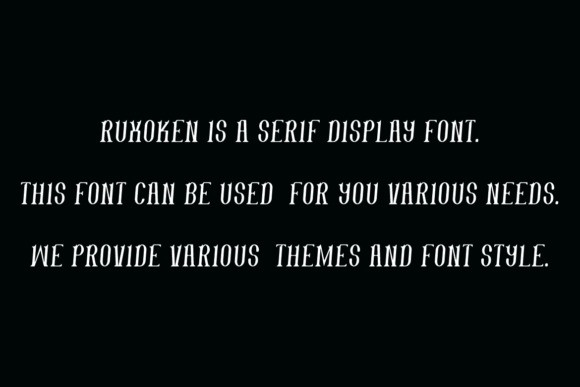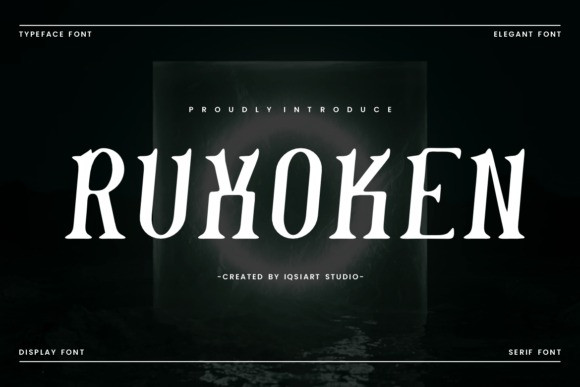
Ruxoken Font
Ruxoken Font is a sophisticated serif font that blends classic elegance with modern refinement. Featuring high-contrast strokes, graceful curves, and finely tuned serifs, it exudes a sense of timeless luxury and professionalism. Ideal for editorial layouts, branding, invitations, and upscale packaging, it brings a polished and confident tone to any project. Its balanced proportions and subtle details make it both versatile and memorable.